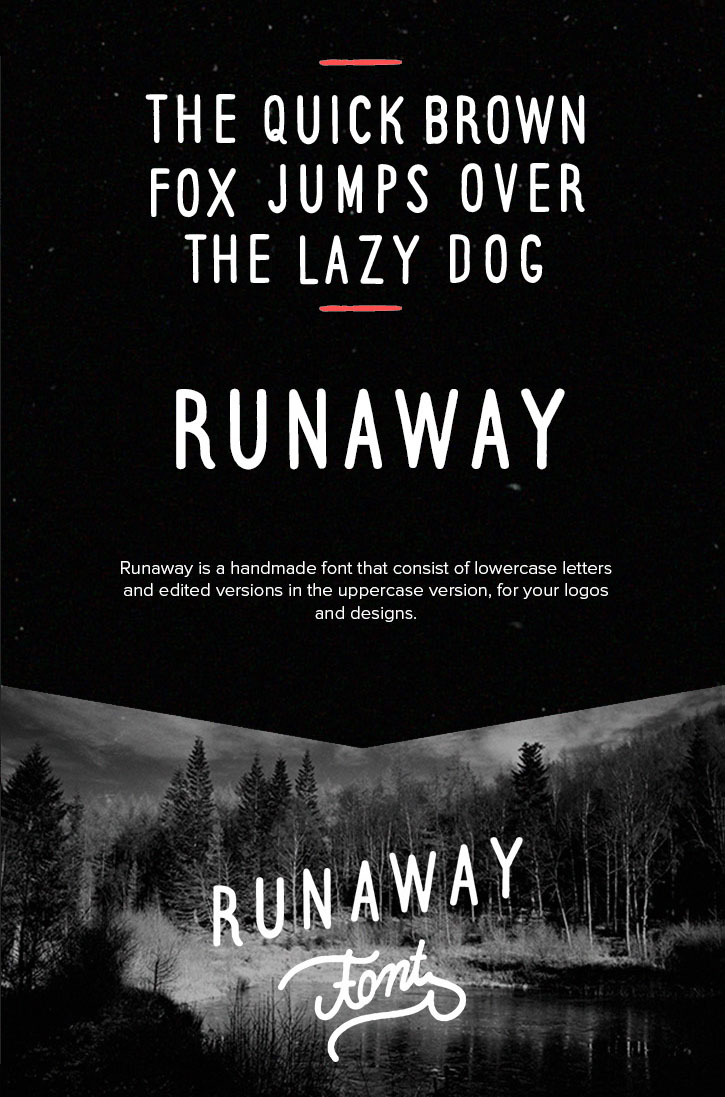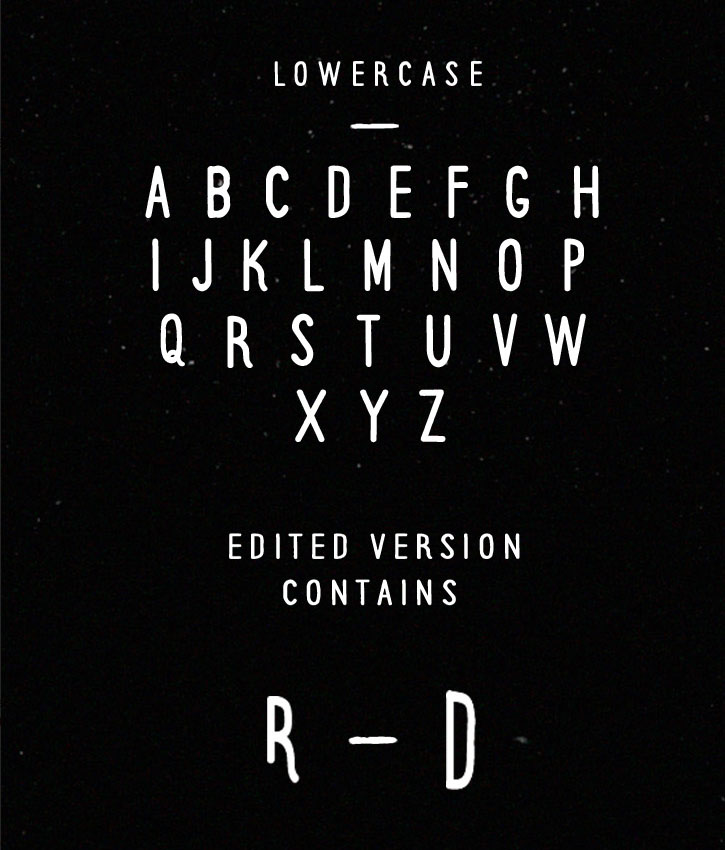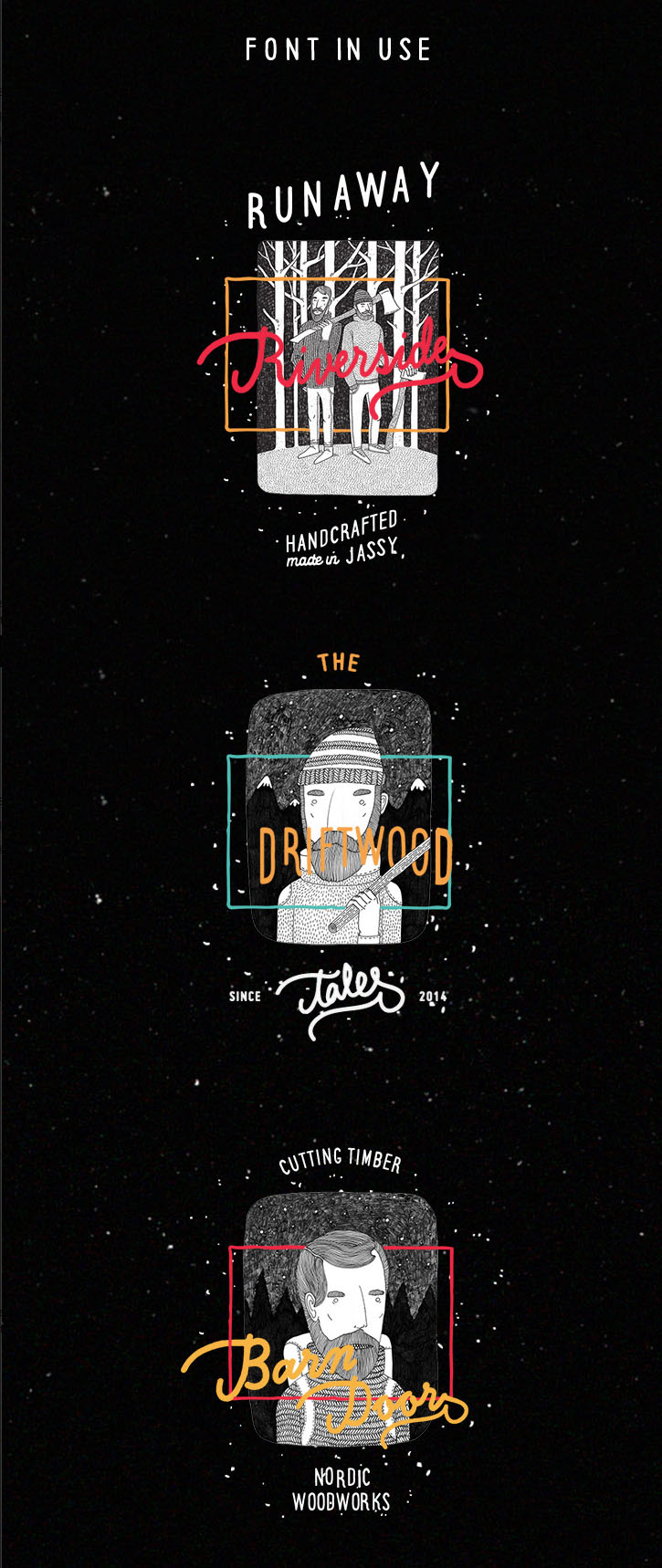
Runaway – Free Hand Drawn Font
This retro/vintage hand drawn custom font is from Iulian Maftei. An all caps font / typeface with cool style. Download and enjoy 😉